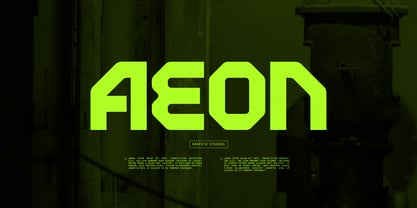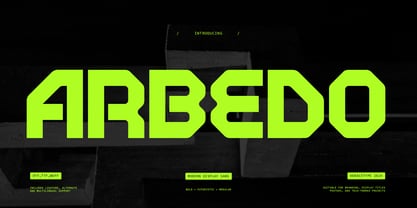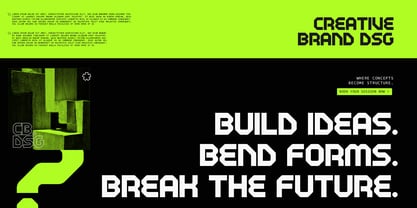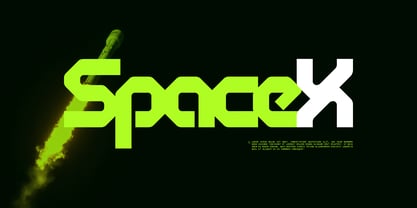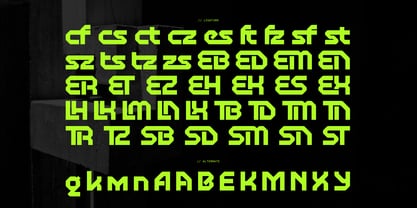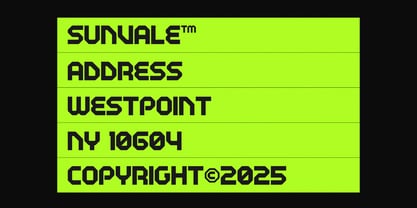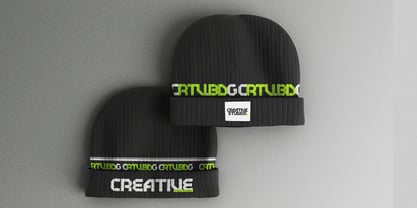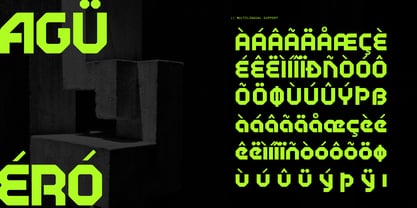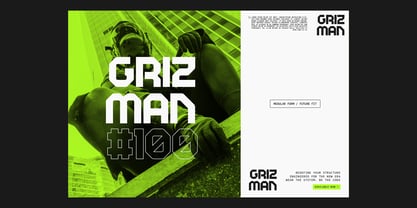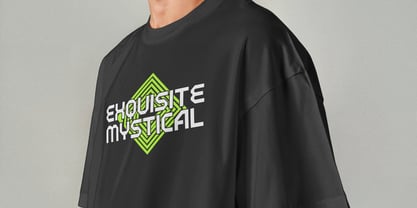
Arbedo
Arbedo | Modern Display Sans, from Gracetypestudio, suitable for any projects such as: logos, branding projects, homeware designs, product packaging, mugs, quotes, posters, shopping bags, t-shirts, book covers, name card, invitation cards, greeting cards, label, photography, watermark, special events, and all your other lovely projects that need a Modern Display Sans taste.
• Regular and Italic
• Alternate and Ligature
• Fonts include multilingual support